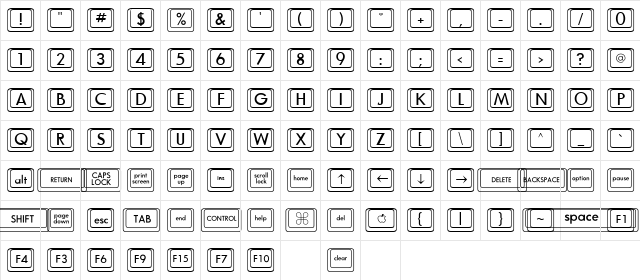
Davys Plain Font Preview
Davys Plain
Davys Plain Font Details
Design Context for Davys Typeface
Davys offers clean, dependable letterforms without strong stylistic allegiance, making it a practical choice for designers who need flexibility.